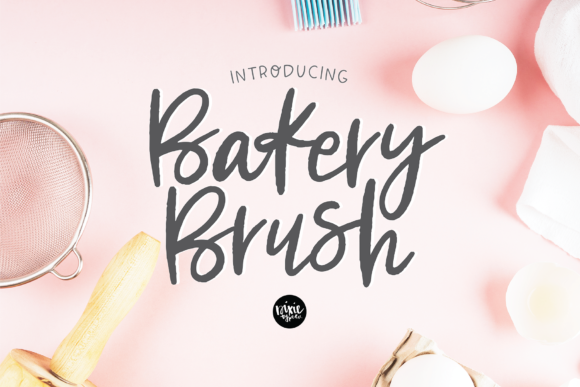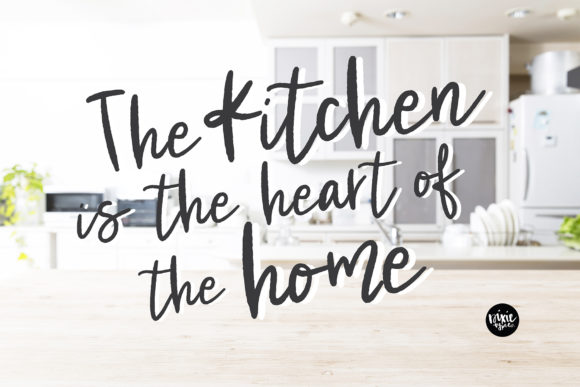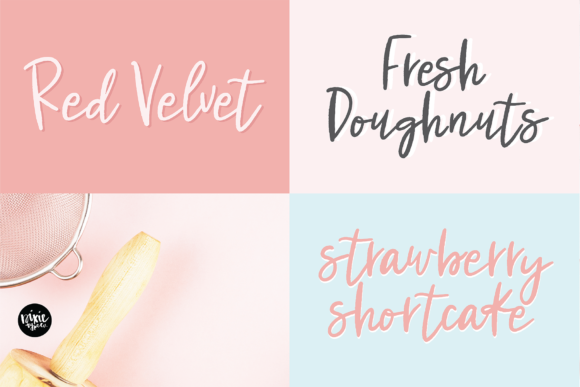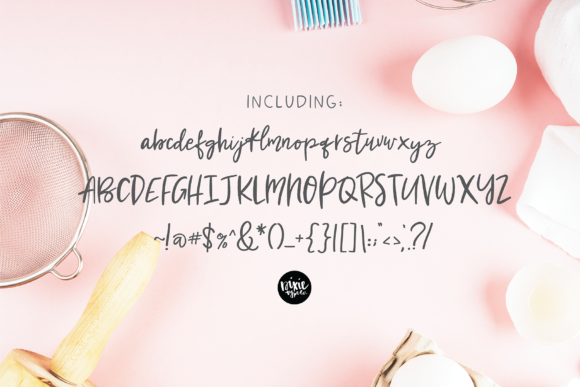
Bakery Brush Font
About Bakery Brush Font
Bakery Brush is a bouncy handwritten font created with a brush pen. It will elevate a wide range of design projects to the highest level, be it branding, headings, wedding designs, invitations, signatures, logos, labels, and much more!